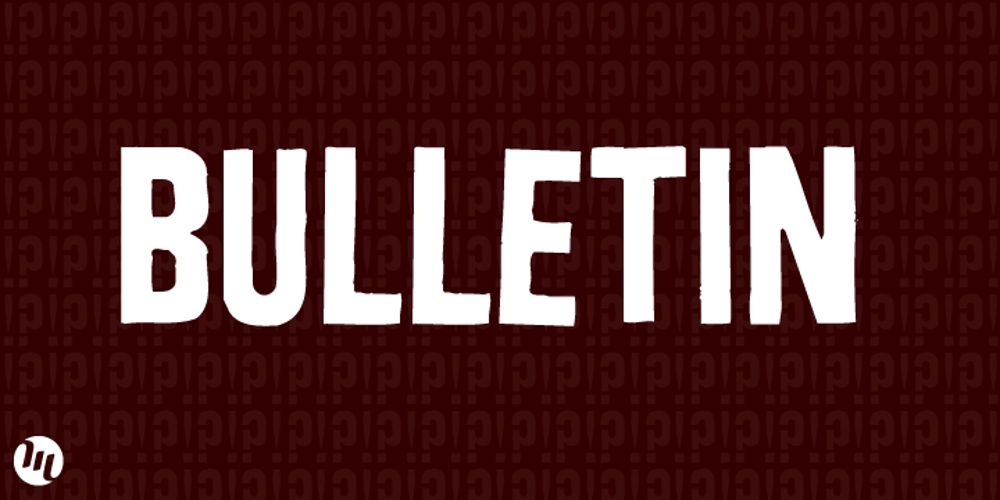
Bulletin Font Family was designed by Matthew Aaron Desmond and published by MADType. Bulletin contains 4 styles and family package options. A gritty and powerful all-caps face. Four styles are included so you can mix and match letters to create unique designs.